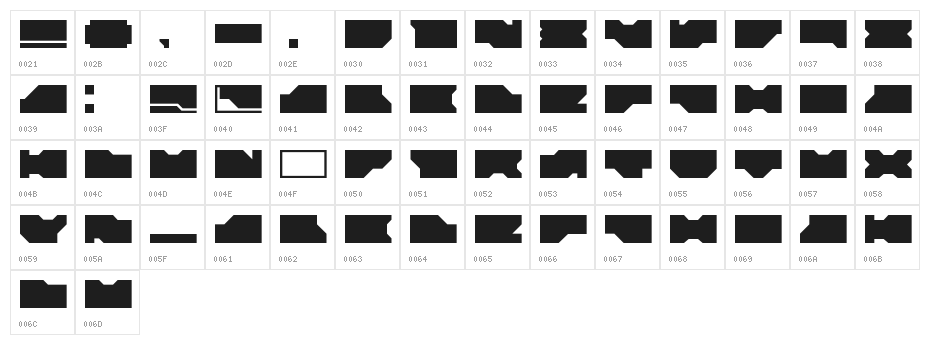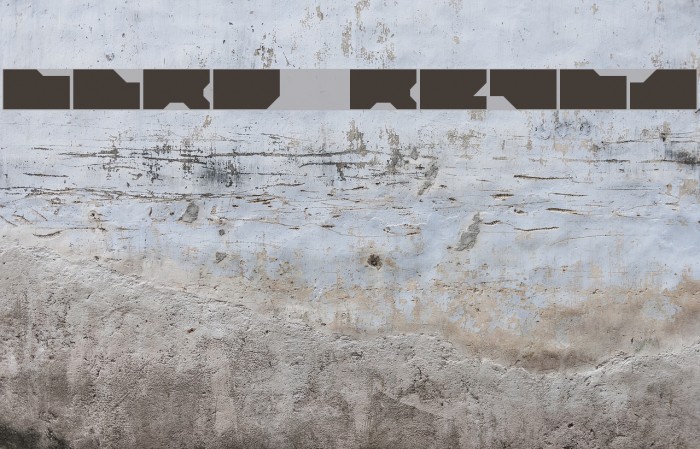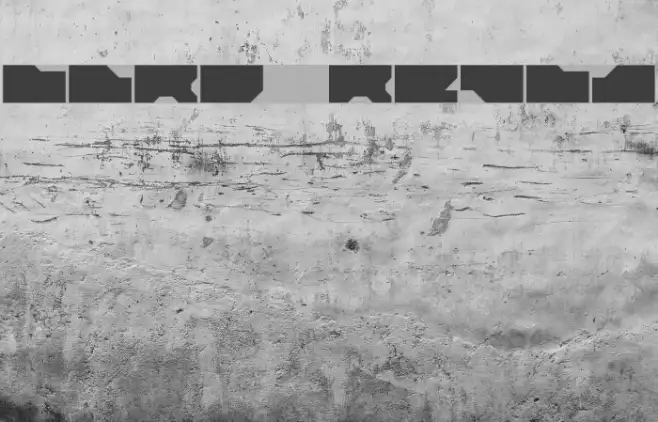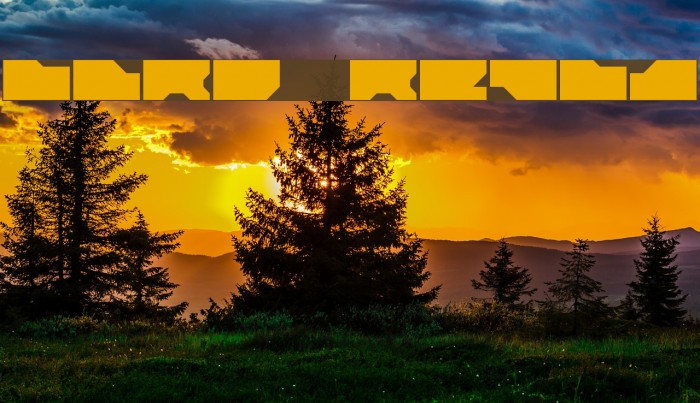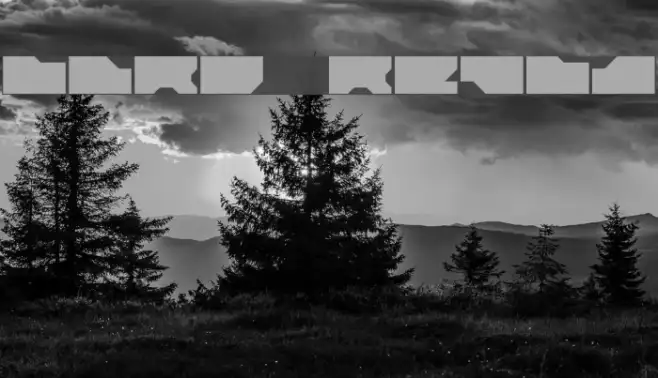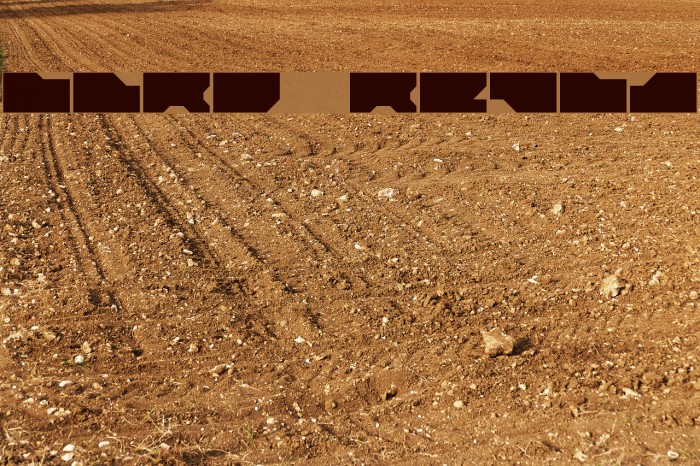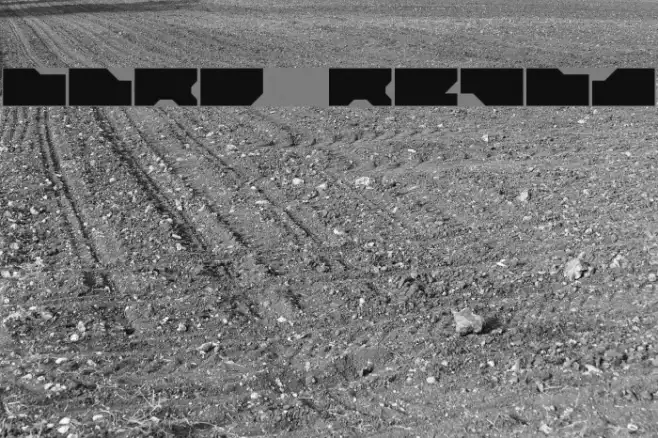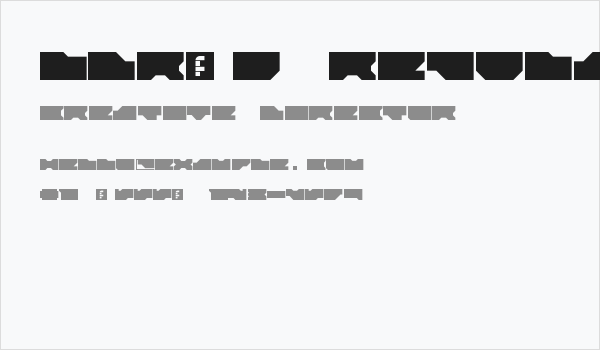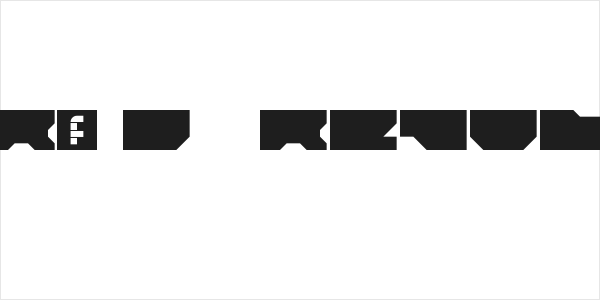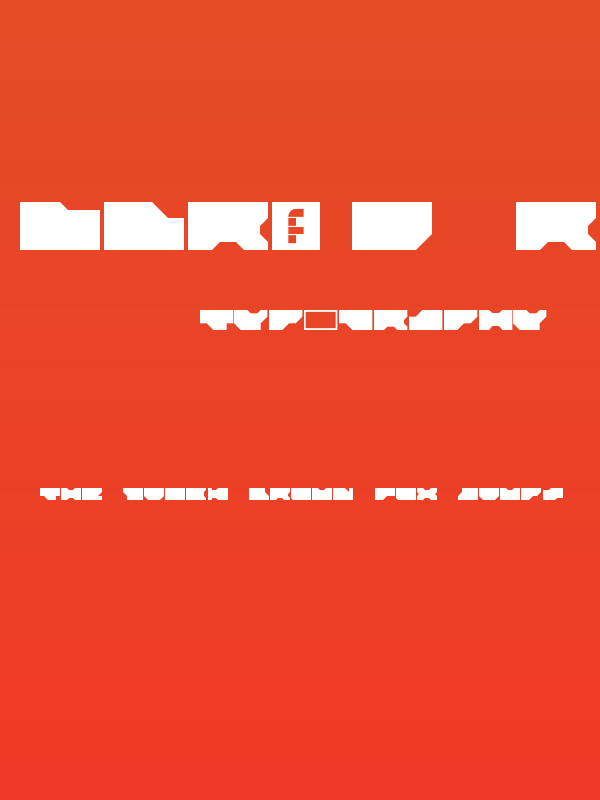
LDR#0 Regular Font
LDR#0 Regular Description
This font features a bold, geometric design with a distinctly futuristic and digital aesthetic. Each character is constructed with sharp angles and straight lines, creating a blocky and robust appearance. The uppercase and lowercase letters maintain a consistent style, emphasizing uniformity and precision. The numerals and special characters follow the same design principles, ensuring a cohesive look across all glyphs. This font's unique style is reminiscent of digital displays or retro video game graphics, making it stand out with its modern yet nostalgic vibe.